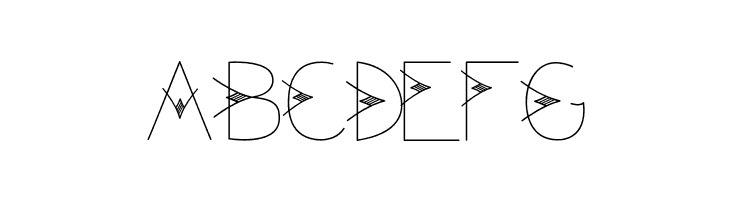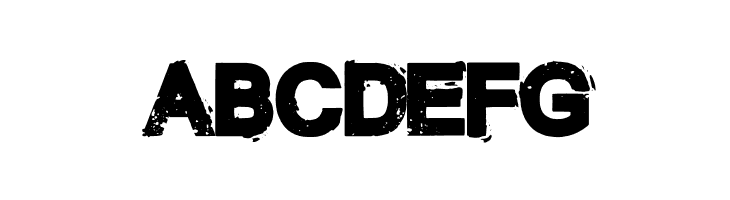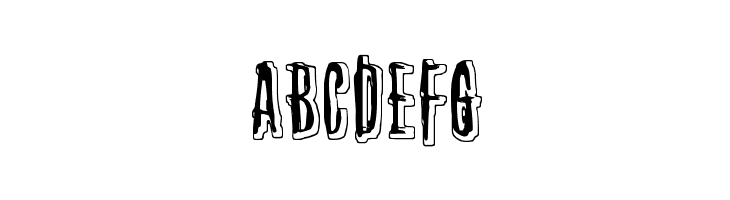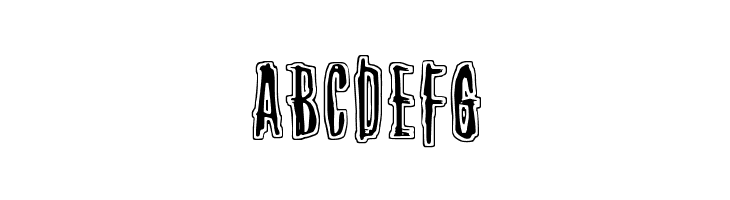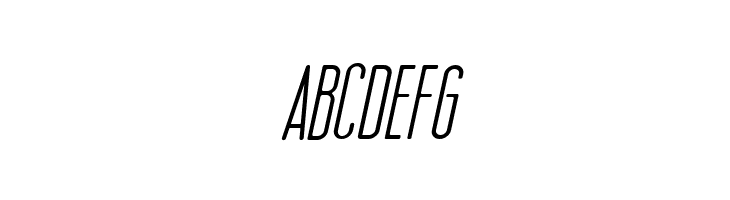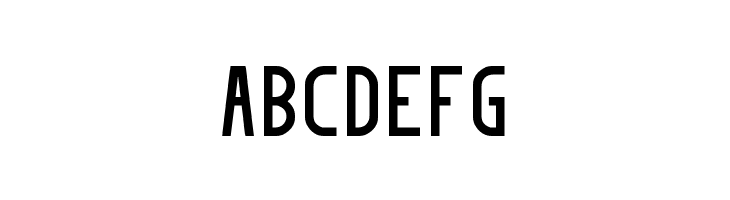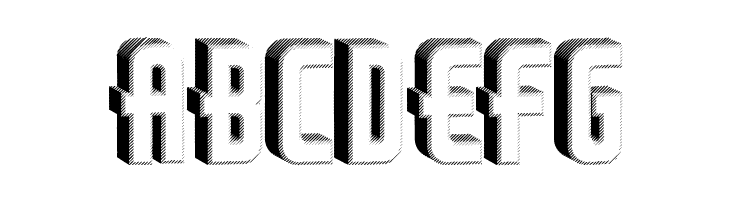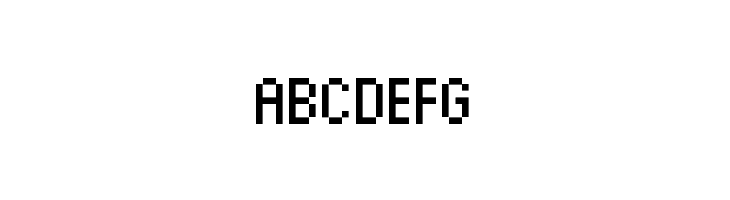
A bold, distressed font with a rugged, vintage aesthetic.
A geometric and angular font with a futuristic and edgy design.
A sleek, modern font with elongated, narrow characters and a minimalist design.
A sleek, italicized font with thin, elongated characters for a modern look.
A chaotic, thorny decorative font with intricate, jagged details.
A pixelated, blocky font with a retro digital aesthetic.
A bold, decorative font with a hand-drawn, distressed look.
A bold, hand-drawn font with textured outlines and an edgy style.
A bold, 3D font with a vintage, art deco style and striped shadow effect.
A modern, geometric typeface with clean lines and a slightly condensed structure.